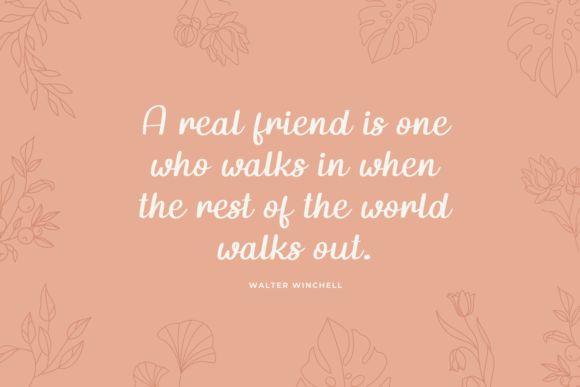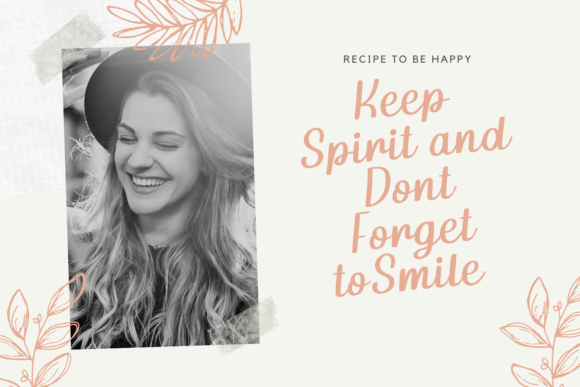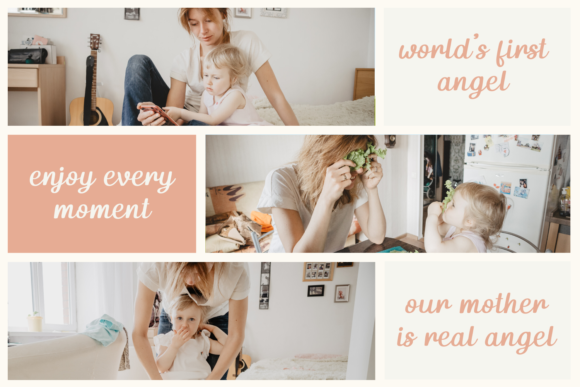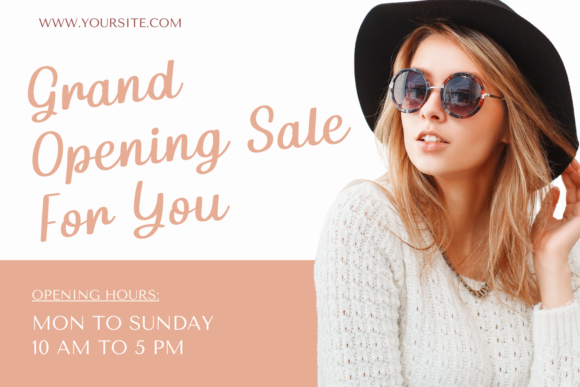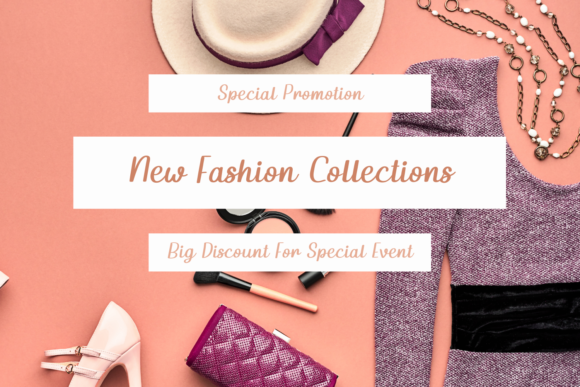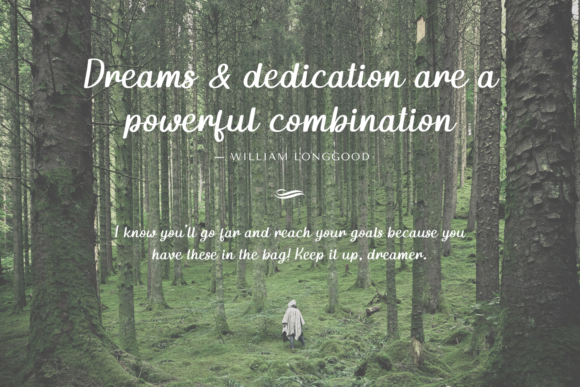
The Sweet Spot: Discovering the Charm of Gladione Font
I’ll never forget the time I was working on a project for a client who wanted a quote overlay on a vibrant background image. I had spent hours browsing through font libraries, but nothing seemed quite right – either too formal, too quirky, or just plain boring. That’s when I stumbled upon Gladione Font, and it instantly became the perfect fit. In this article, I’ll share my experience with this lovely handwritten script font, its features, and how to make the most of it in your designs.
- ✨ Sweet and Friendly Vibe: Gladione Font exudes a warm, approachable feel that’s perfect for quotes, casual projects, and adding a personal touch to your designs.
- ✅ Versatility: This font shines in any context, whether it’s used on busy backgrounds or as a standalone headline.
- 💡 Ease of Use: Gladione Font is easy to read and works well in various design applications, making it a great choice for designers of all levels.
While Gladione Font is an excellent choice for many projects, there are a few things to keep in mind:
- 🤔 Legibility on Small Sizes: Like many script fonts, Gladione may become less legible at very small sizes or when used in large blocks of text.
- ⚠️ Overuse of Swashes: While the font’s swashes and stylistic alternates are beautiful, overusing them can make the text harder to read.
A Practical Guide: Using Gladione Font in Your Designs
Exploring Alternatives: Similar Fonts to Gladione
If you love Gladione Font but want to explore other options, here are a few similar fonts you might enjoy:
- Lobster: A classic, elegant script font with a sophisticated feel, ideal for formal projects and headings.
- Pacifico: A beautiful, modern script font with a relaxed vibe, perfect for casual designs and social media graphics.
- Great Vibes: A fun, energetic script font with a playful feel, great for kids’ projects, party invitations, and more.
- Alex Brush: A lovely, handwritten script font with a whimsical touch, suitable for creative projects and artistic designs.
The Story Behind Gladione Font
Gladione Font was designed with the intention of creating a friendly, approachable script font that would bring warmth and personality to designs. The designer aimed to craft a font that would be easy to read and versatile enough to work in various contexts, from casual social media graphics to more formal projects.
| Font Name | Gladione Font |
| Author | josgandos |
Q: Is Gladione Font suitable for body text?
A: While Gladione Font is beautiful and easy to read, it’s best suited for headings and short paragraphs. For longer blocks of text, a more traditional serif or sans-serif font might be more suitable.
Q: Does Gladione Font come with swashes and stylistic alternates?
A: Yes, Gladione Font features a range of swashes and stylistic alternates that can be accessed through OpenType features in compatible design software.
Q: Is Gladione Font available in multiple weights?
A: Gladione Font comes in a single weight, but its versatility and range of OpenType features make it suitable for various design applications.